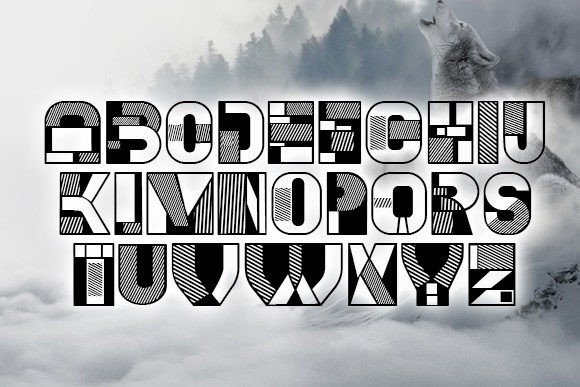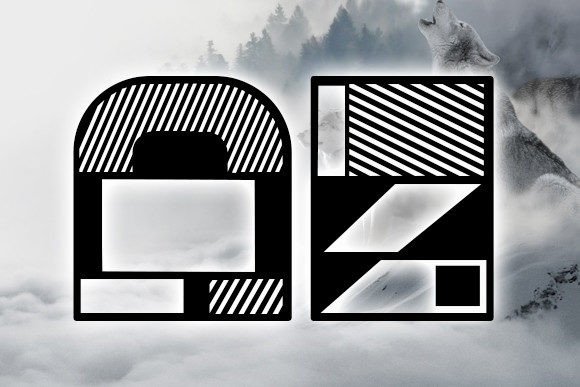
Introduction to Gemeenskap Font
Gemeenskap is a stylish abstract typeface that will look stunning on any of your projects.
Use this font on posters, flyers, and t-shirts .
Key Features of Gemeenskap Font